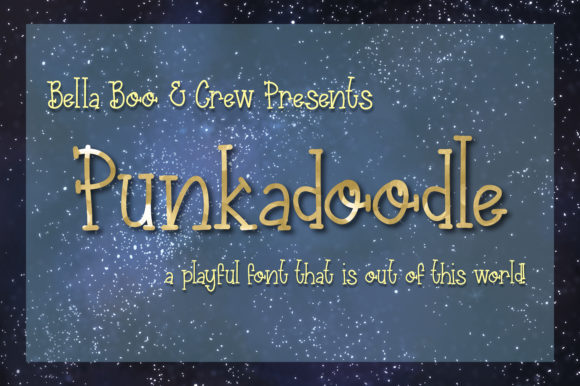
Are you ready to give your designs a touch of cosmic cuteness? Look no further than Punkadoodle Font, our enchanting serif font that's a blast from outer space!
Punkadoodle Font is the perfect choice for any project that calls for a playful and charming touch. Its whimsical curves and adorable details will inject a sense of cosmic wonder into your posters, social media posts, and packaging.
With Punkadoodle Font, you can bring your creative vision to life in a way that's both eye-catching and endearing. Whether you're creating greeting cards, children's books, or adorable branding materials, Punkadoodle Font will add a spark of joy and imagination to your designs.
So why settle for ordinary fonts when you can add a touch of the extraordinary with Punkadoodle Font? Embrace the playful and embrace the cute – let Punkadoodle Font take your designs to a whole new galaxy!
Created by the talented BellaBoo, Punkadoodle Font is a serif font that's both stylish and whimsical. It's perfect for adding a touch of personality to any project, and it's sure to make your designs stand out from the crowd.